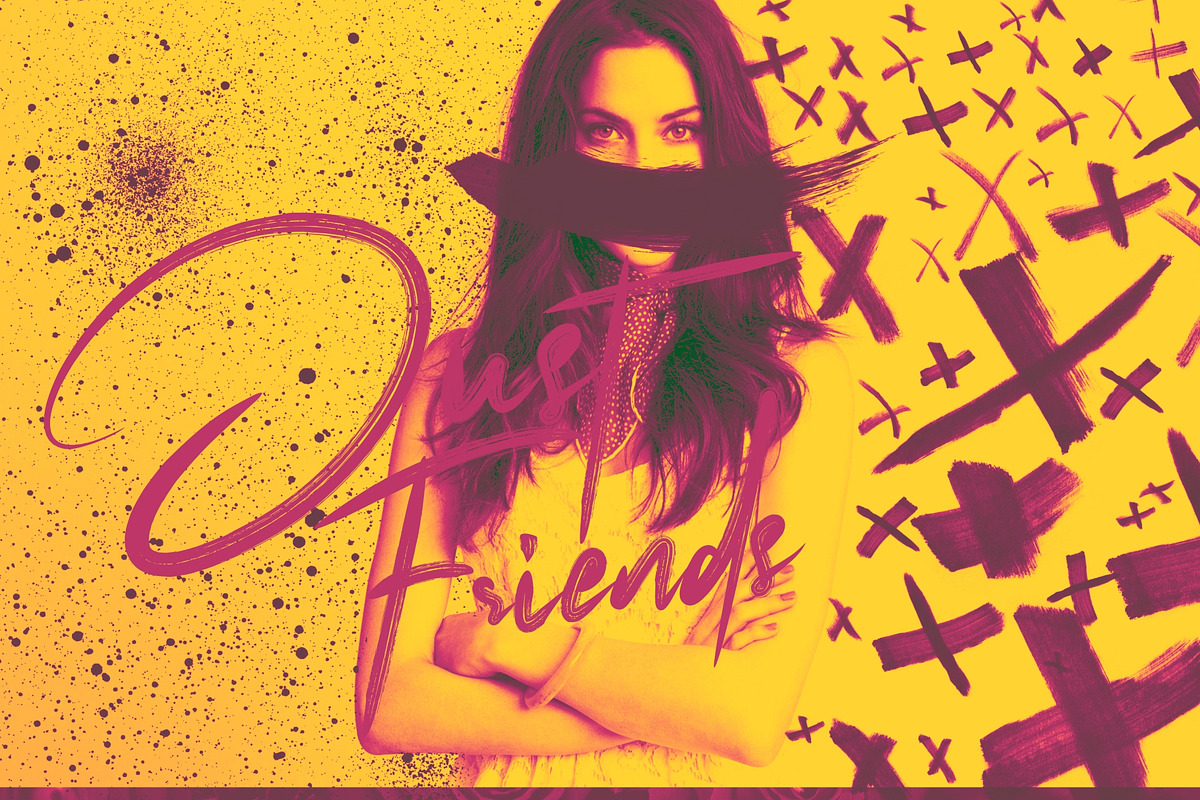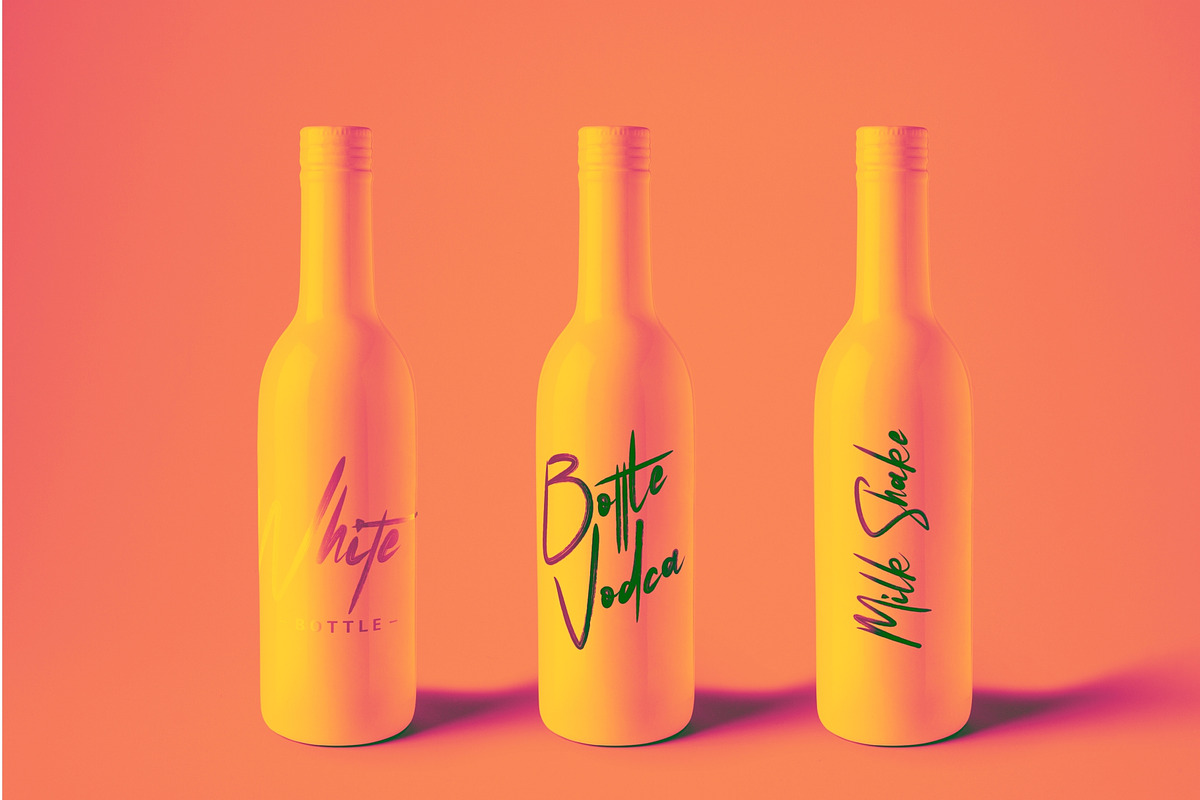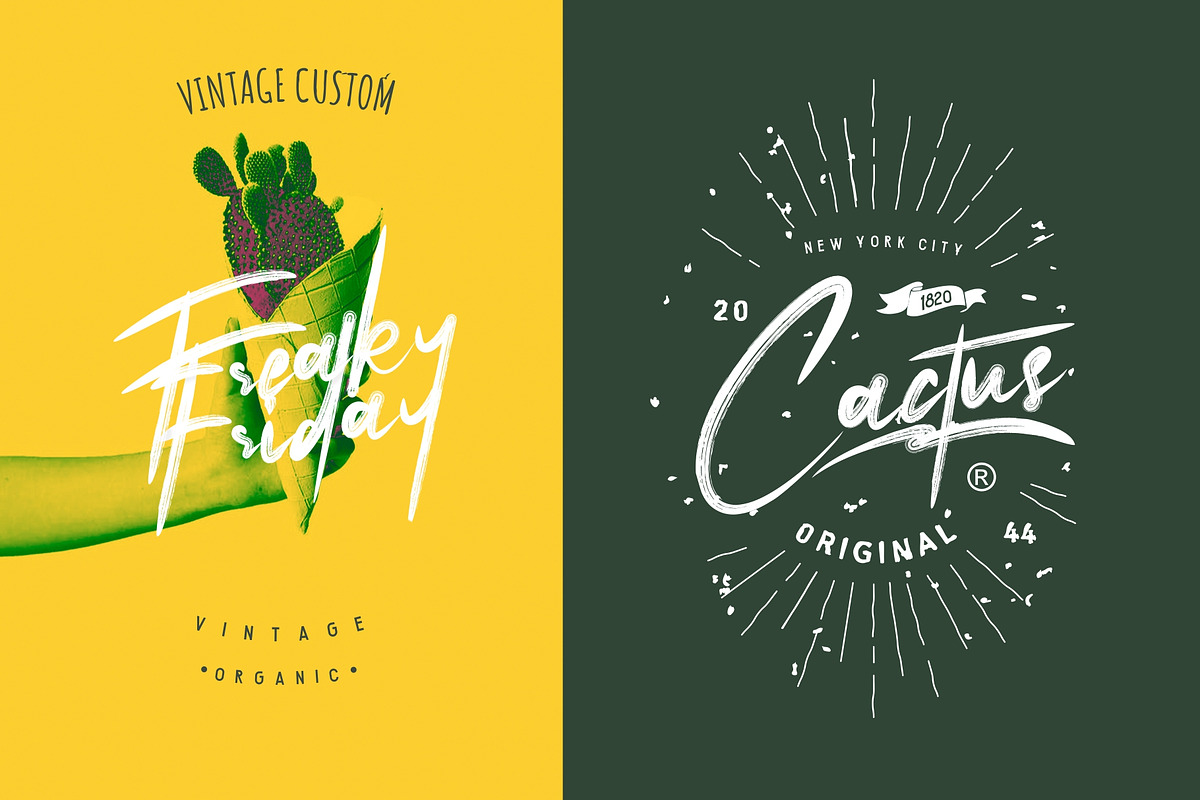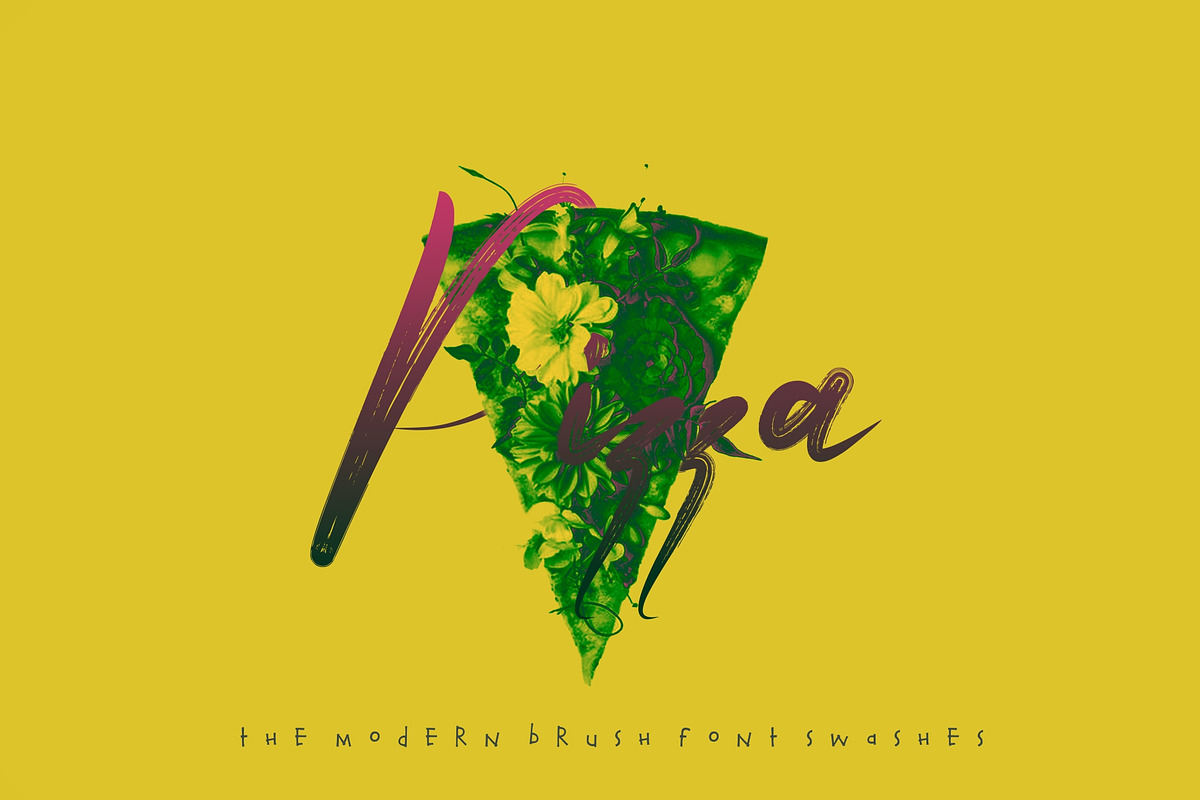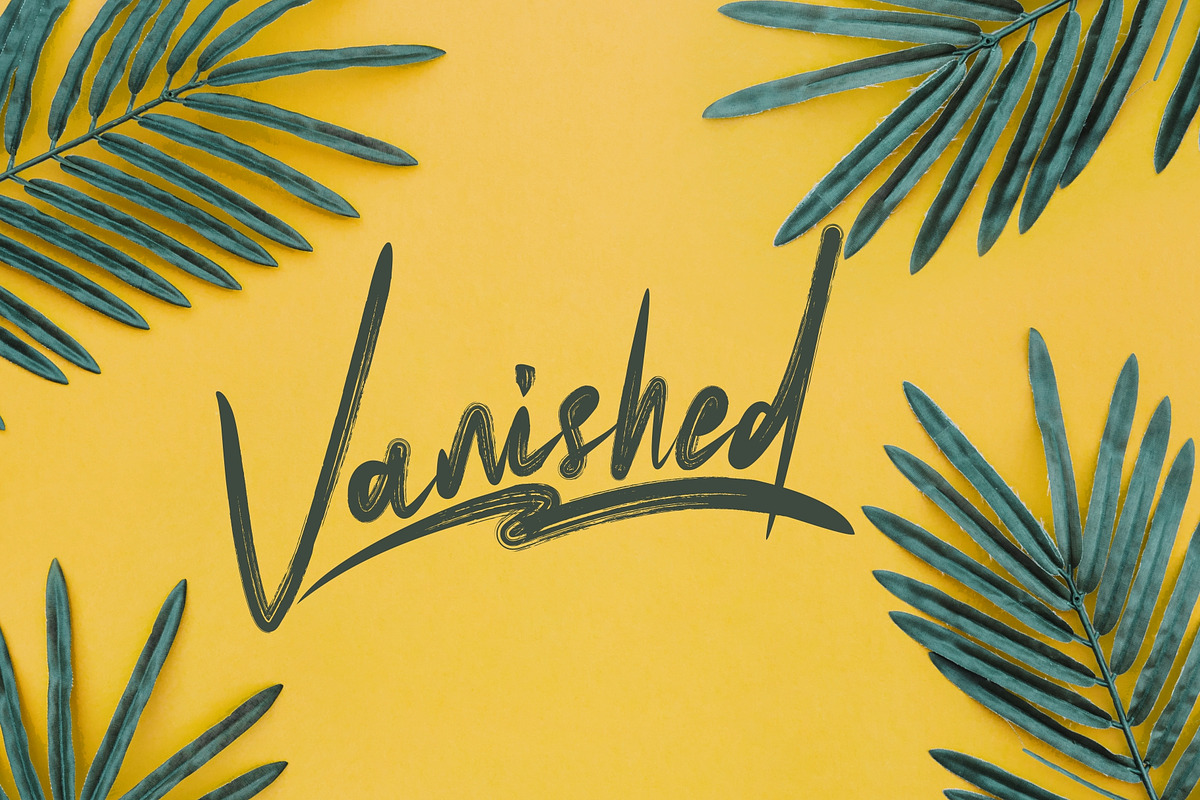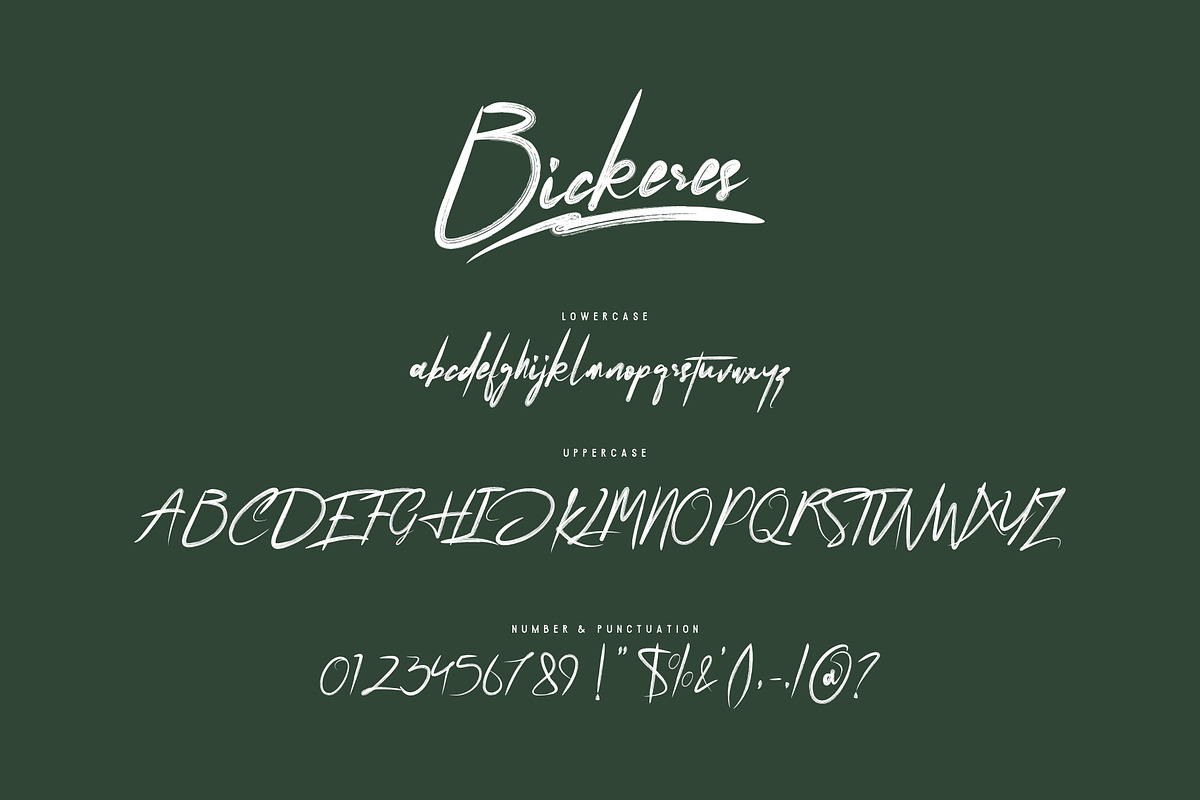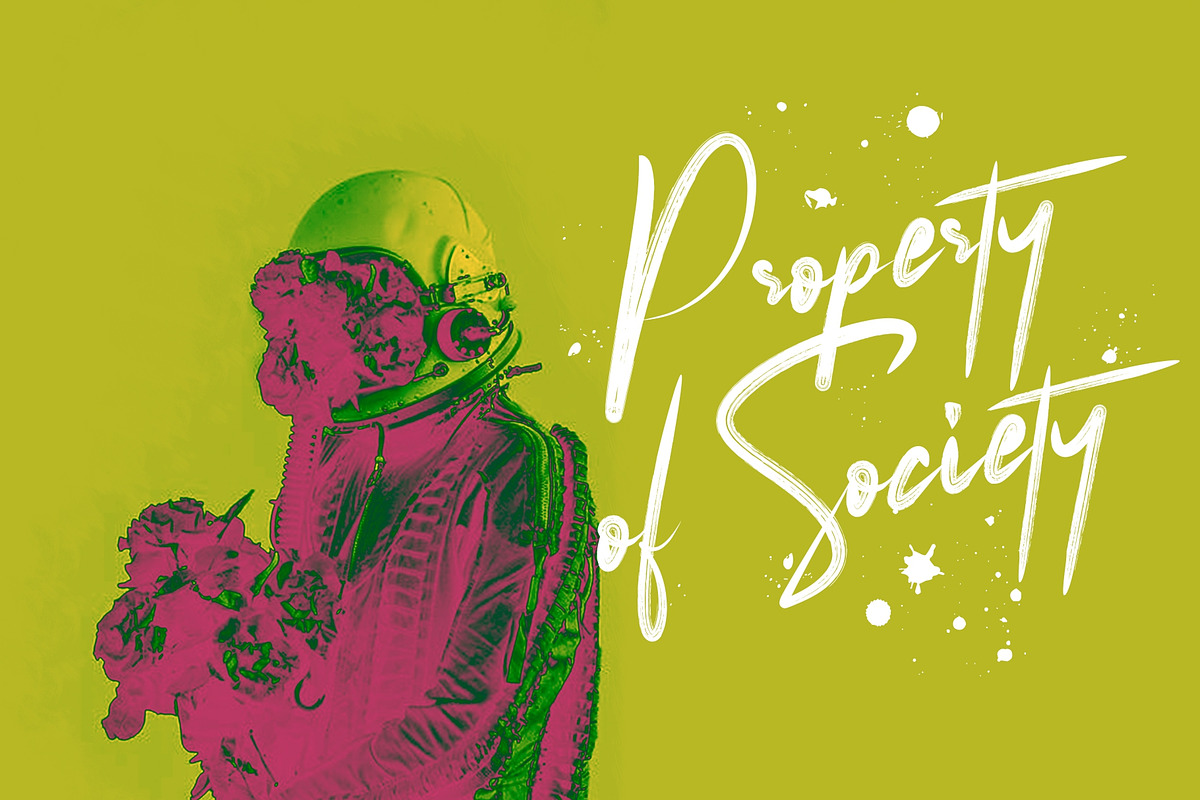
Bickeres Brush Font
Give your designs an authentic handcrafted feel. “Bickeres Brush” is perfectly suited to stationery, poster, busuness card, logos and much more
Bickeres Brush Font by Maxim apperian fits naturally into Branding, posters, packaging, typography.